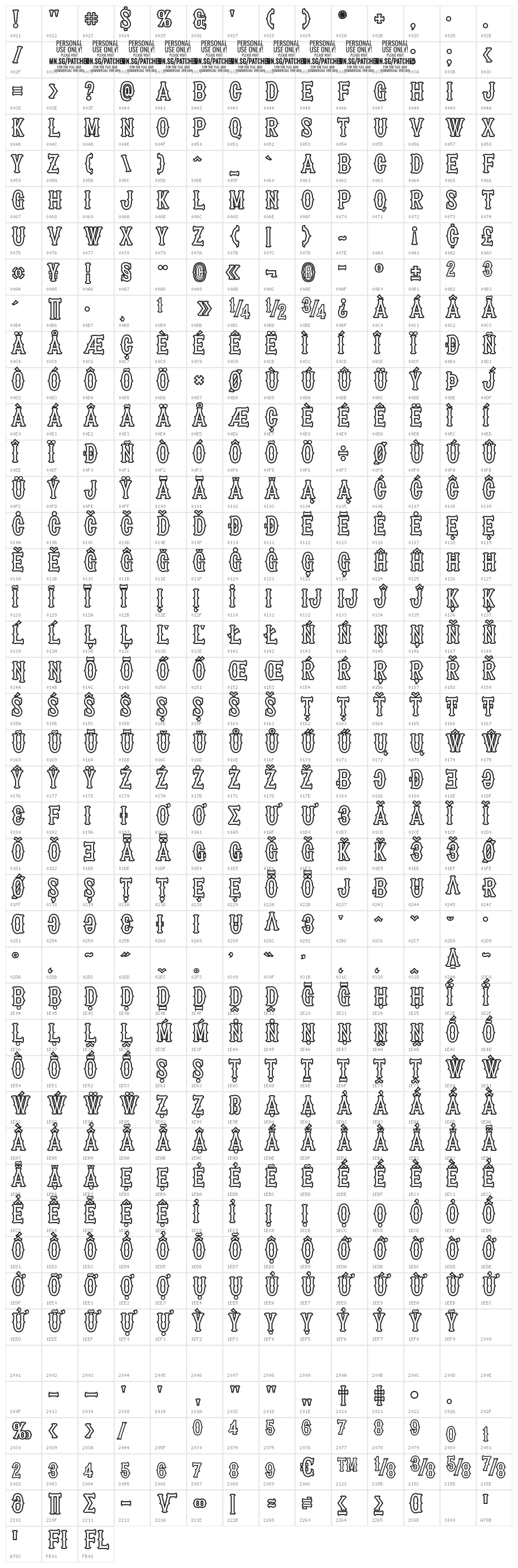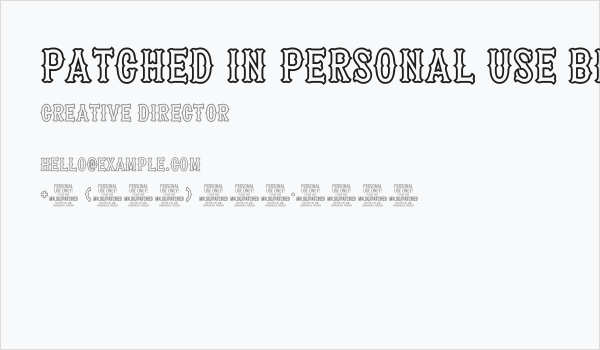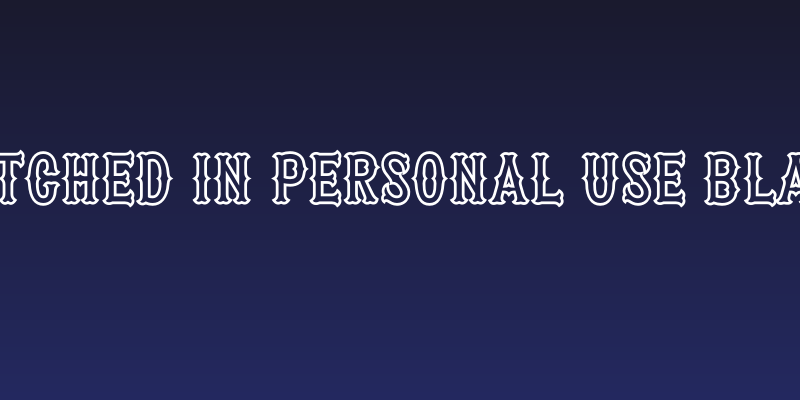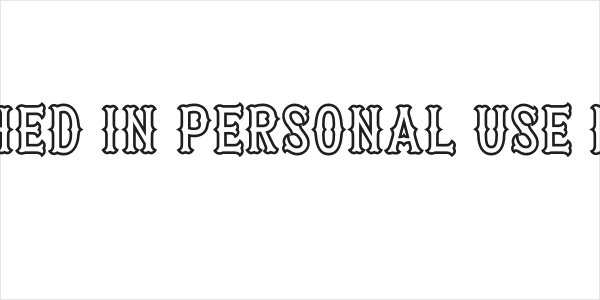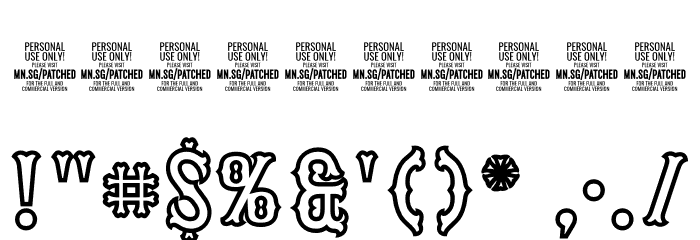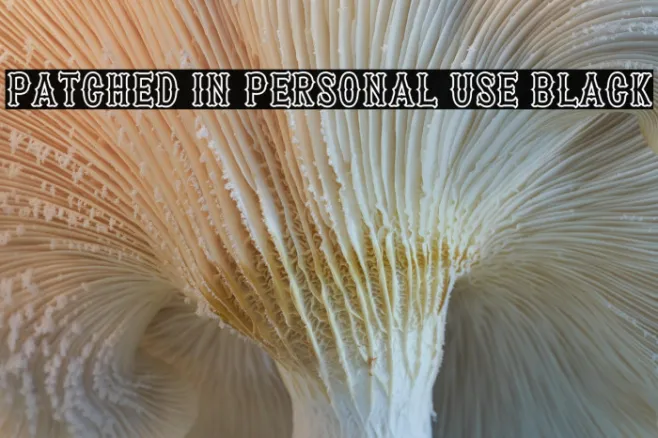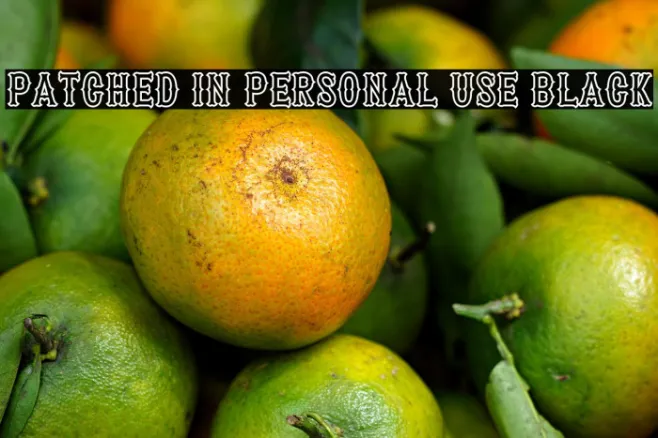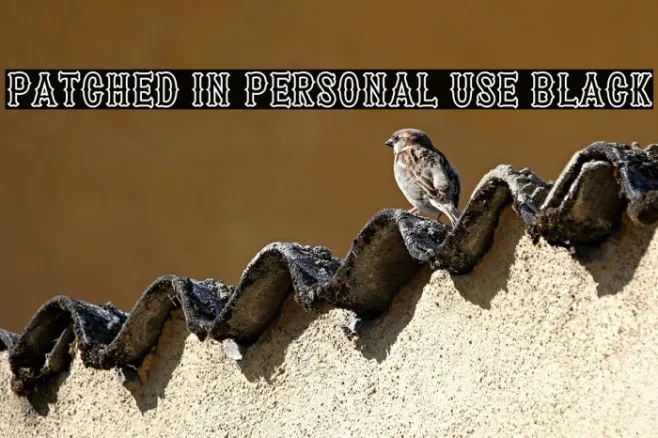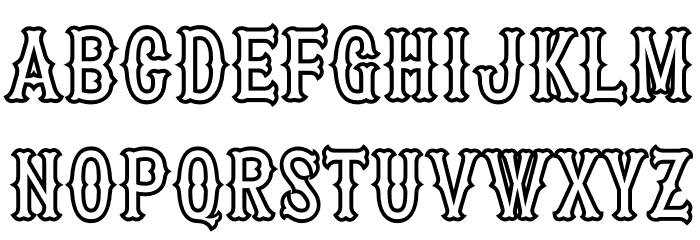
Patched In PERSONAL USE Black Font
Patched In PERSONAL USE Black Description
This font features a bold, decorative style with a unique outline effect that gives it a striking appearance. The characters are designed with a playful yet structured form, making them stand out with their thick borders and intricate inner details. The uppercase and lowercase letters maintain a consistent style, with each character exhibiting a distinct personality. The numbers and special characters are equally bold and decorative, ensuring a cohesive look across all glyphs. This font is ideal for projects that require a strong visual impact and a touch of creativity.
| Proposed Projects | Ideal for posters, logos, headlines, and any design requiring a bold, eye-catching typeface. |